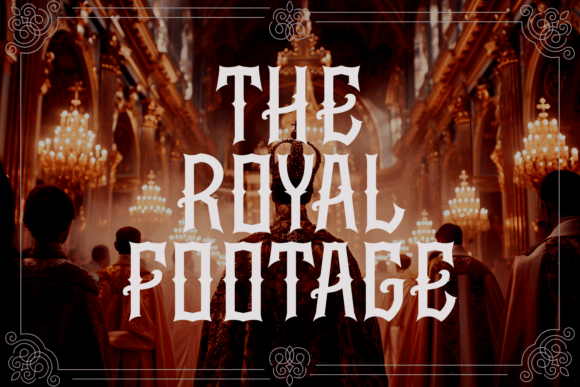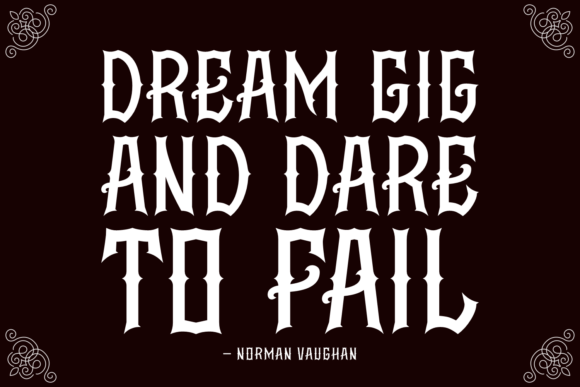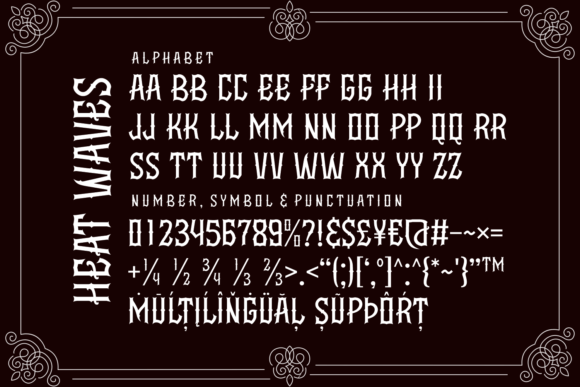
Introducing Heat Waves Font: Unleash the Power of Vintage-Inspired Blackletter Typography
In the world of typography, few fonts can evoke the same level of drama and intensity as Heat Waves. This sharp, vintage-inspired blackletter font is designed to bring character and personality to any design, making it a perfect choice for designers and crafters looking to make a statement. With its unique blend of classic Gothic typography and modern accessibility, Heat Waves is sure to elevate your designs to the next level.
The Characteristics of Heat Waves Font
So, what makes Heat Waves font so special? Let’s take a closer look at its key characteristics:
- Elongated Vertical Forms: Heat Waves features dramatic, elongated vertical forms that give it a sense of grandeur and sophistication. These extended lines add a touch of elegance to any design, making it perfect for headlines, titles, and other display text.
- Aggressive Curves: The font’s aggressive curves add a sense of dynamism and energy to your designs. These bold, sweeping lines are sure to grab attention and leave a lasting impression.
- Ornate Flourishes: Heat Waves is adorned with intricate, ornate flourishes that add an extra layer of character to each letter. These decorative touches evoke the spirit of classic Gothic typography, giving your designs a sense of history and tradition.
The Inspiration Behind Heat Waves Font
Heat Waves font draws inspiration from the classic Gothic typography of the past, but with a modern twist. Its vintage-inspired design makes it perfect for a wide range of applications, from:
- Poster Headlines: Create eye-catching posters with Heat Waves font and make your message stand out from the crowd.
- Beverage Labels: Add a touch of sophistication to your beverage labels with Heat Waves font, perfect for craft beers, wines, and other specialty drinks.
- Vintage Branding: Give your brand a retro makeover with Heat Waves font, ideal for rebranding, packaging, and marketing materials.
- Rock Band Merchandise: Heat Waves font is a natural fit for rock band merchandise, adding a bold, edgy touch to t-shirts, posters, and other promotional materials.
Why Choose Heat Waves Font?
With so many fonts to choose from, why should you choose Heat Waves? Here are just a few reasons:
- Unique Character: Heat Waves font has a unique character that sets it apart from other fonts. Its blend of classic and modern elements makes it a versatile choice for a wide range of designs.
- High-Impact Visuals: Heat Waves font creates a powerful visual impact with every letter, making it perfect for designs that need to stand out.
- Easy to Use: Despite its intricate design, Heat Waves font is surprisingly easy to use, even for beginners.
Tips for Using Heat Waves Font
To get the most out of Heat Waves font, here are a few tips to keep in mind:
- Use it Sparingly: Due to its bold, attention-grabbing nature, it’s best to use Heat Waves font sparingly. Reserve it for headlines, titles, and other display text to maximize its impact.
- Experiment with Colors: Heat Waves font looks great in a variety of colors, from bold and bright to muted and subtle. Experiment with different color schemes to find the perfect fit for your design.
- Pair it with Other Fonts: Heat Waves font pairs well with a range of other fonts, from clean and modern sans-serifs to elegant scripts. Experiment with different font combinations to find the perfect match.
Heat Waves font is a powerful, versatile choice for designers and crafters looking to add a touch of drama and intensity to their designs. With its unique blend of classic Gothic typography and modern accessibility, it’s perfect for a wide range of applications, from poster headlines to vintage branding. So why not give Heat Waves font a try and see the impact it can have on your designs?